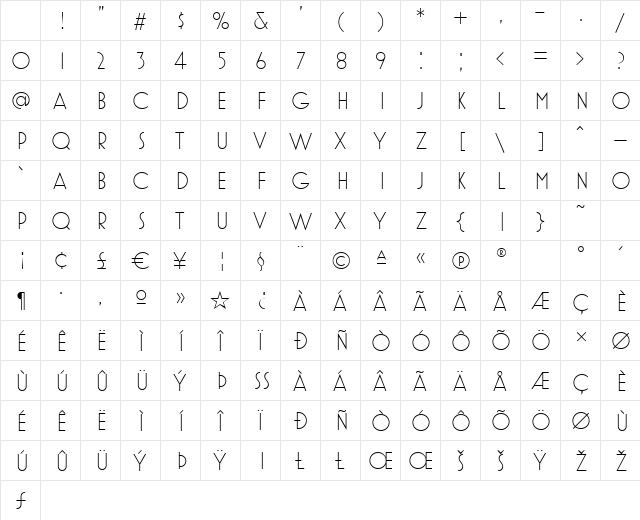
Complete MostraOneLight Regular glyph index. Displaying only characters natively supported by MostraOneLight Regular font.
MostraOneLight is a composed and adaptable typeface that performs quietly and consistently across a wide range of design contexts. Its slender proportions lend an understated elegance to any composition.